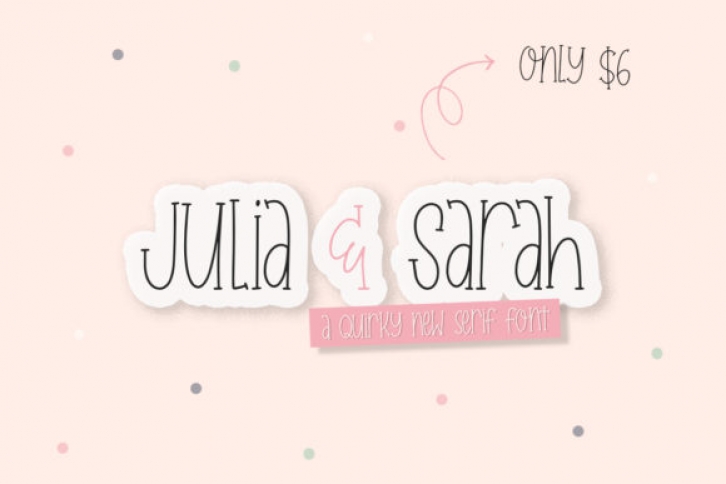
Julia & Sarah is a cool and quirky serif font. Whether you are using it for cartoon-related designs, children’s games, quotes, titles, brand names, book covers, posters, or just any creation that requires a touch of beauty, this font is a great choice.